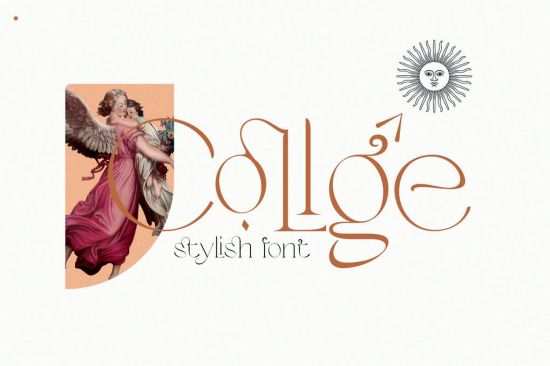
Collge is a serif typeface with ligatures also complete multilingual glyphs. Collge come with Regular style, it will make this typeface can be used in all design projects and works perfectly for pairing with script typeface or handmade fonts, Headlines, Posters, Packaging, T-shirts, Postcards, Invitation, Wedding Sign, Sign Painting, Signboard, and much more.
Try Collge, enjoy the richness of OpenType features and let her fun and elegant excitement make you happy and enhance your creativity! You can use this font very easily.